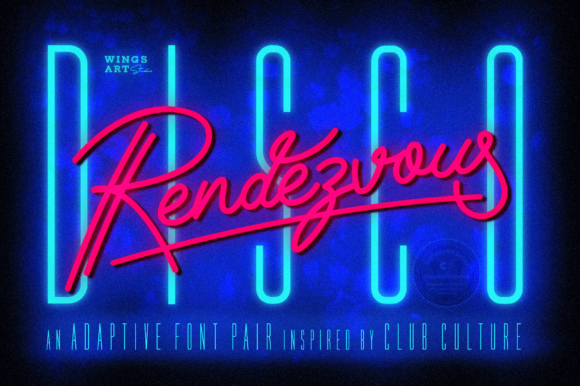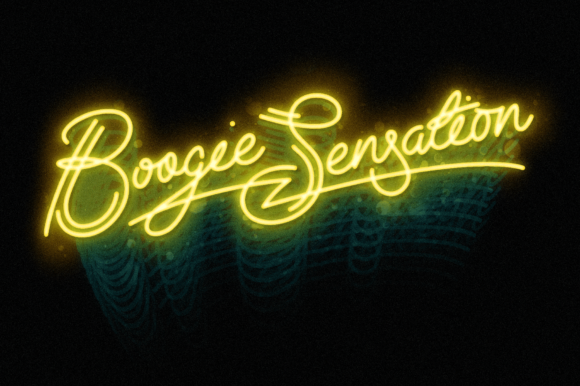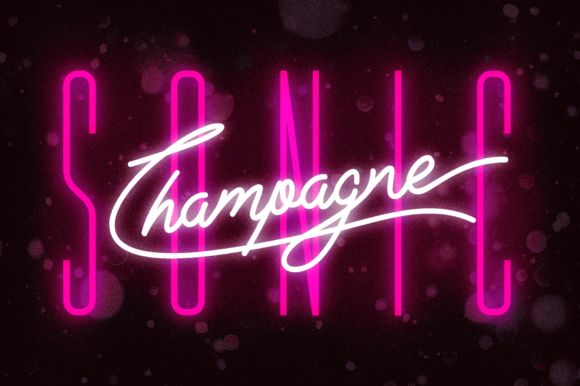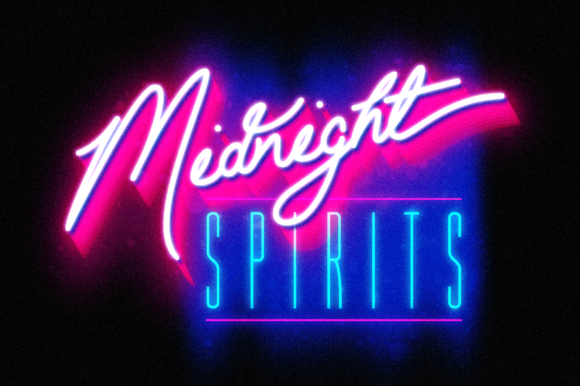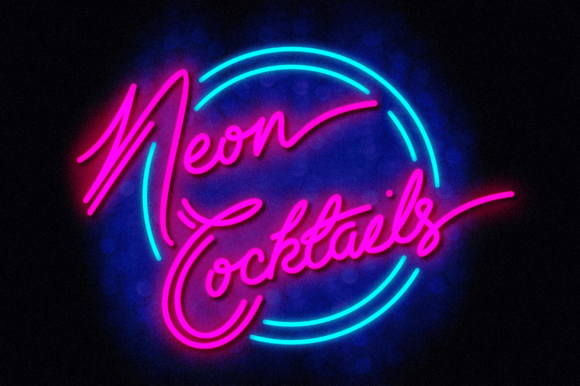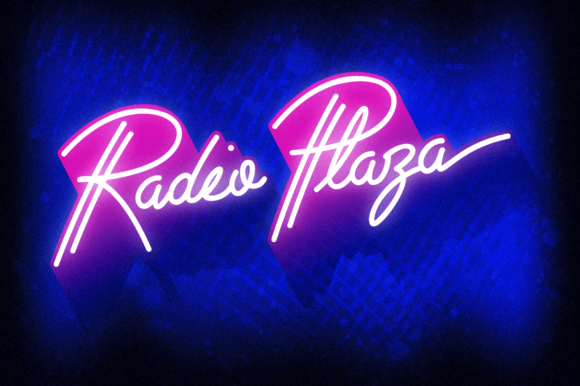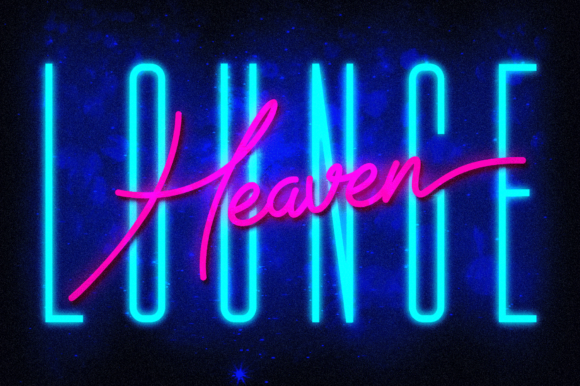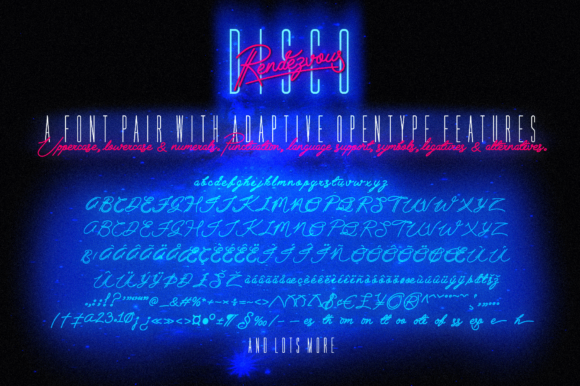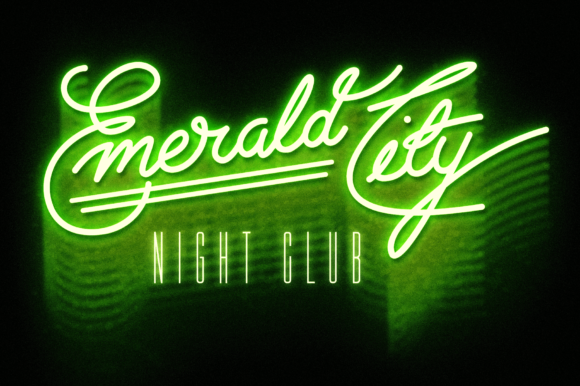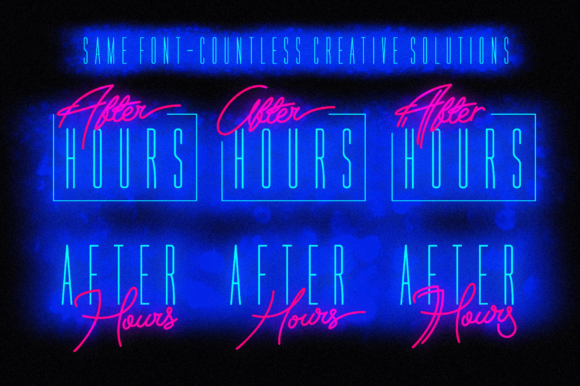
Disco Rendezvous Font
About Disco Rendezvous Font
Disco Rendezvous is a dynamic and captivating duo font that combines both a stylish script and a bold display typeface. This unique font set offers a playful and energetic vibe, making it an excellent choice for a variety of creative projects.
The script font in Disco Rendezvous brings a sense of fluidity and elegance to your designs. Its flowing cursive strokes and graceful letterforms add a touch of sophistication to any text. Whether you’re designing wedding invitations, greeting cards, or social media posts, the script font adds a sense of charm and personality to your creations. With the convenience of PUA encoding, you can easily access a wide range of alternate characters, ligatures, and swashes, allowing you to customize and embellish your text for a truly unique look.
Complementing the script font is the bold display typeface. This typeface is bold and attention-grabbing, making it ideal for headlines, titles, logos, and other design elements that require a strong visual impact. The contrasting styles of the script and display fonts create a harmonious balance, allowing you to experiment with different combinations and layouts to achieve the desired effect.
Whether used separately or together, Disco Rendezvous offers versatility and creativity to your design projects. From branding and logos to posters and merchandise, this font duo adds a cool and unique flair that captures attention and makes a memorable impression.
In summary, Disco Rendezvous is a cool and unique font duo that includes a stylish script and a bold display typeface. Its PUA encoding provides easy access to a variety of glyphs and swashes, allowing you to customize your designs with ease. Whether you’re looking to add elegance or make a bold statement, Disco Rendezvous is a fantastic choice for your creative endeavors.